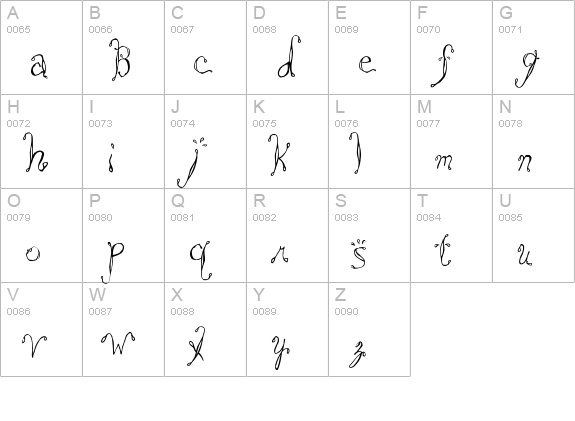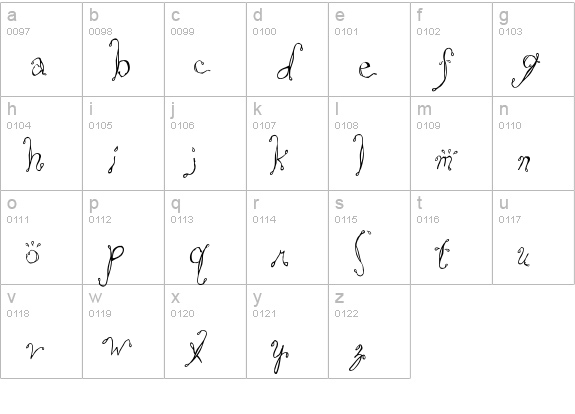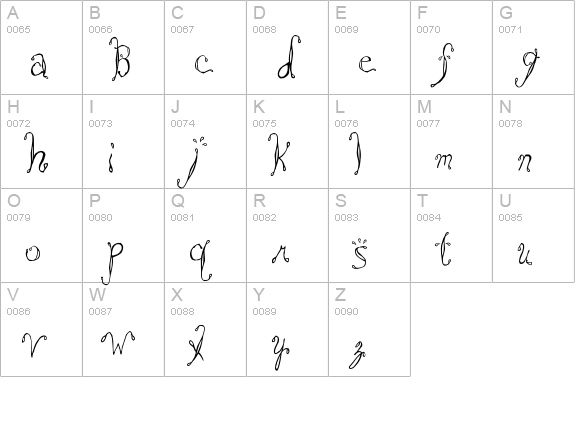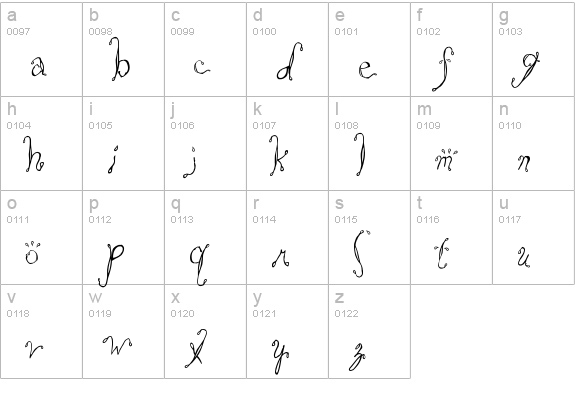
Saltwater Font Details
Saltwater font is a stunningly elegant and versatile typeface that will bring a touch of sophistication to any project. Its beautifully crafted letterforms exude a timeless charm, making it perfect for a wide range of design applications, such as branding, packaging, editorial, and more. The flowing and graceful curves of Saltwater font will effortlessly captivate your audience, creating a sense of harmony and refinement. Its clean lines and balanced proportions make it easily readable, even at smaller sizes, ensuring that your message comes across with clarity and impact. One of the best things about Saltwater font is that it is free! Yes, you read that right. This exceptional font is freely available to download at FontsMarket.com. This means that you can add a touch of elegance to your designs without breaking the bank. Whether you are a professional designer or a hobbyist, Saltwater font is the perfect choice for those who appreciate quality and style. With Saltwater font, you have the freedom to explore your creativity and bring your vision to life. Whether you want to create a classic logo, design a sophisticated menu, or craft an elegant wedding invitation, this font will elevate your project to new heights. So why wait? Download Saltwater font today and experience the beauty and versatility that it has to offer. Transform your designs into works of art with this exquisite typeface, all while enjoying the freedom of a free font. Don't miss out on this amazing opportunity to enhance your designs with Saltwater font, available exclusively at FontsMarket.com.